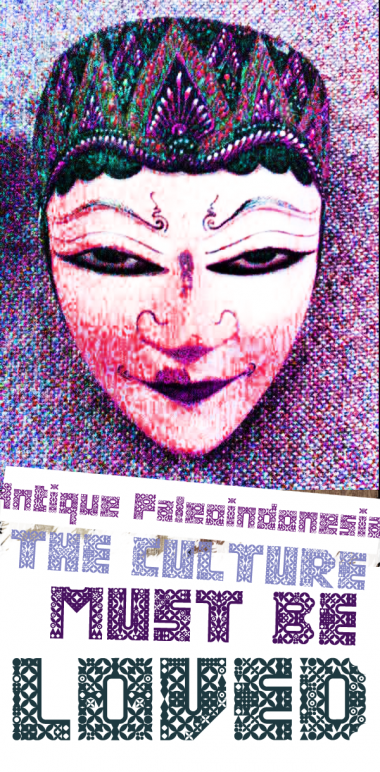
Fascinating patterns! The Beauty on glyphs.
It's not finish yet. There are still many glyphs that not yet edited
Ohmygoodness!
This is unbelievably gorgeous. Such beautiful detailing. Batik was good, but this is genius.
Oh wow. The flow of ideas from you is just amazing!
Congratulations! FontStruct Staff have deemed your FontStruction worthy of special mention. “Antique Paleoindonesia” is now a Top Pick.
I like this now as I liked it when I first saw it :)
Very beautiful
Fascinating.